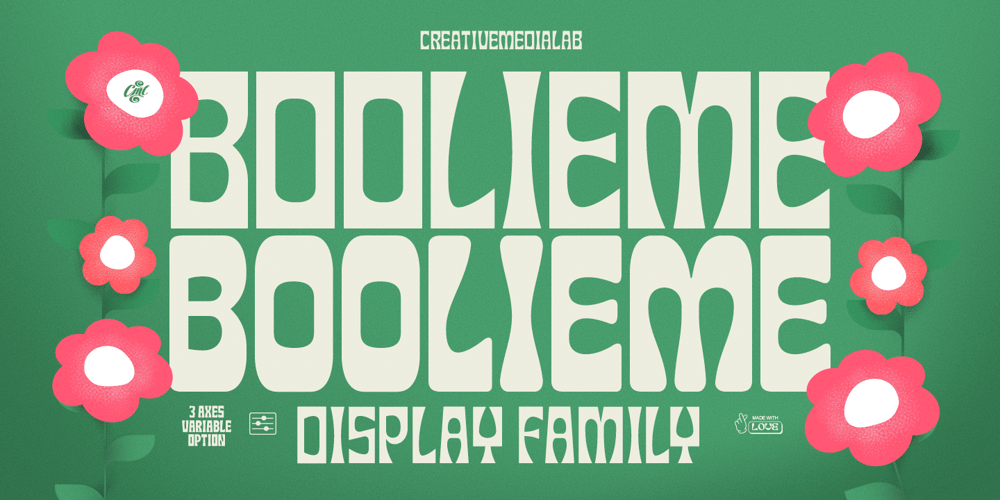
Boolieme Font Family was designed by Kadek Mahardika and published by Creativemedialab. Boolieme contains 16 styles and family package options. Introducing Boolieme, a versatile display font with a fresh retro look. The font is in all capital letters, and it features four unique shape options, ranging from sharp edges to blunt edges. Additionally, it comes in four weights for each style, making it highly adaptable to suit your design theme.